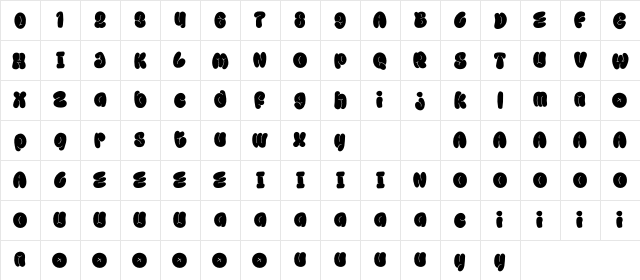
Moonie Eyes DEMO Free Font
Moonie Eyes DEMO
Foundry: ikiiko type
Designer: Andhika Pradana
Design Context for Moonie Eyes
Moonie Eyes is a composed and adaptable typeface that performs quietly and consistently across a wide range of design contexts.